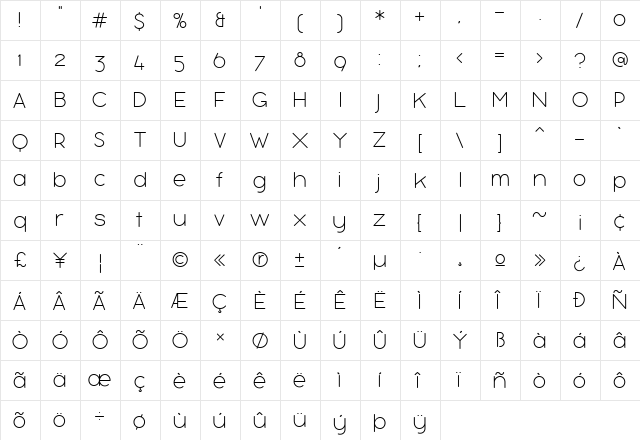
bubbleboddy light Light
| Foundry | studio kmzero |
| Designer | Francesco Canovaro |
Design Context for bubbleboddy light Typeface
bubbleboddy light has an approachable, lighthearted character — its loose, expressive forms are well-suited to children's content, casual branding, and fun-first design.
Font Pairing: Pairs well with a rounded or humanist sans for body copy, maintaining the friendly tone without relying on bubbleboddy light to carry extended reading.
Pro Tip: Avoid using bubbleboddy light for long passages of text — it works best for headlines, labels, and short calls to action.